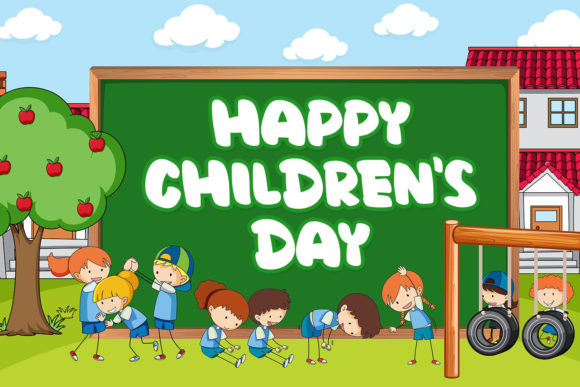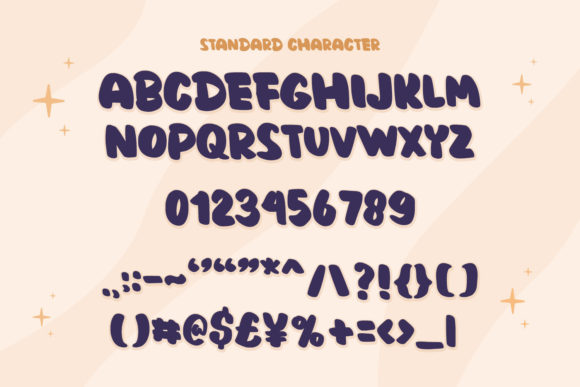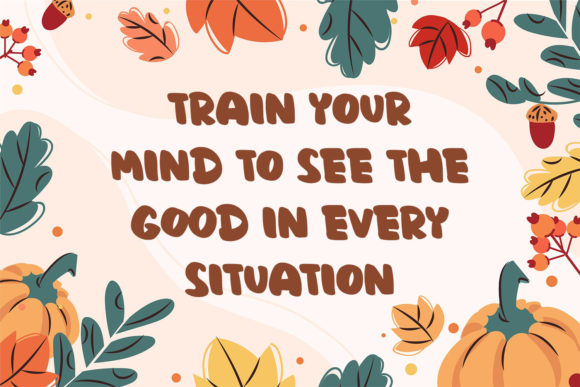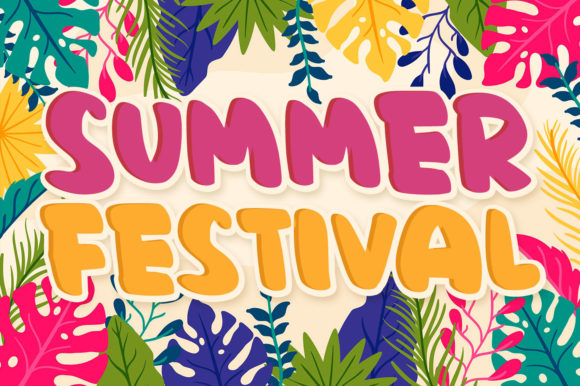
Introduction to Daren Bulky Font Font
Fonts play a crucial role in design, and the Daren Bulky Font font is a typeface that brings both character and versatility to any project. Whether you’re working on a branding project, a website, or a print design, the Daren Bulky Font font offers a unique style that can elevate your work.
Daren Bulky is a playful, cute, and bold display font.
Whimsical and a bit quirky, this font will brighten up each of your designs Add it confidently to your projects, and you will love the results.
Key Features of Daren Bulky Font Font
Why Choose Daren Bulky Font Font?
The Daren Bulky Font font is more than just a typeface – it’s a design tool that helps you communicate your message with style and clarity. Its unique character set and versatile design make it suitable for a wide range of applications, from elegant invitations to bold headlines.
With its carefully crafted letterforms and balanced proportions, the Daren Bulky Font font ensures readability and visual appeal across all mediums.
What makes Daren Bulky Font font special?
The Daren Bulky Font font stands out with its unique design, exceptional readability, and versatility across various design applications.